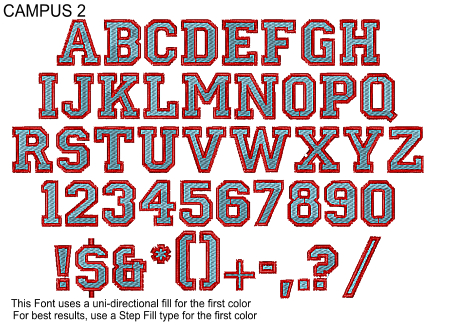
Campus Step Satin
This font utilized a normal fill center section (first color) followed by a satin border. This effect is common on athletic wear and sports wear